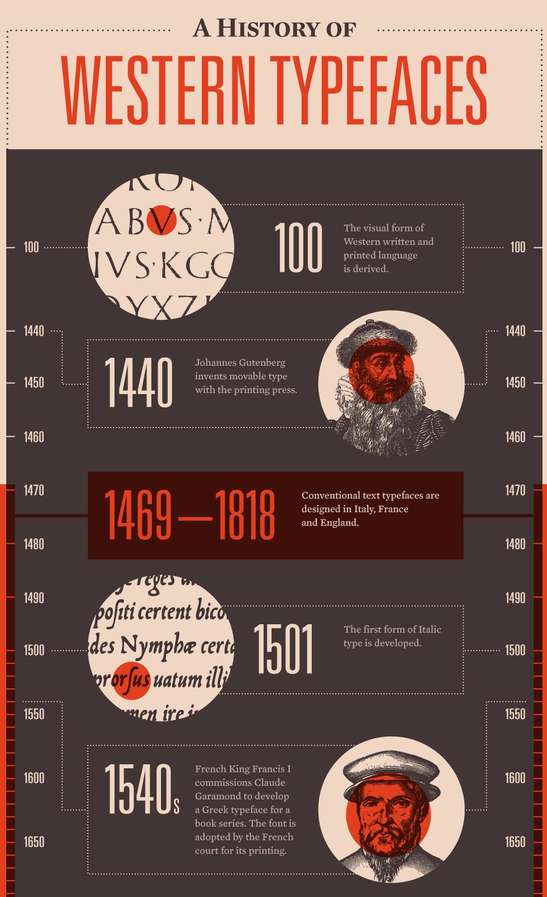
Mashable's 'A History of Western Typefaces' Infographic is Educational
Mashable.com's History of Western Typefaces infographic is a comprehensive review of modern typography beginning with the derision of the first visual form of Western written and printed language. In a world of technologically driven communication, choosing the right typeface to properly establish an identity or brand is becoming increasingly important, which is evident in the existence of both Goggle and Facebook fonts.
Sans-serif printing type was introduced in the early 1800s by William Caslon IV, with crowd favorite member of the sans-serif family Helvetica wasn't designed until 1957. The Western typefaces infographic includes fascinating details on many of the most popular fonts one if likely to see on a daily basis, from the infamous Comic Sans to Century Gothic, which were both products of the 90s.